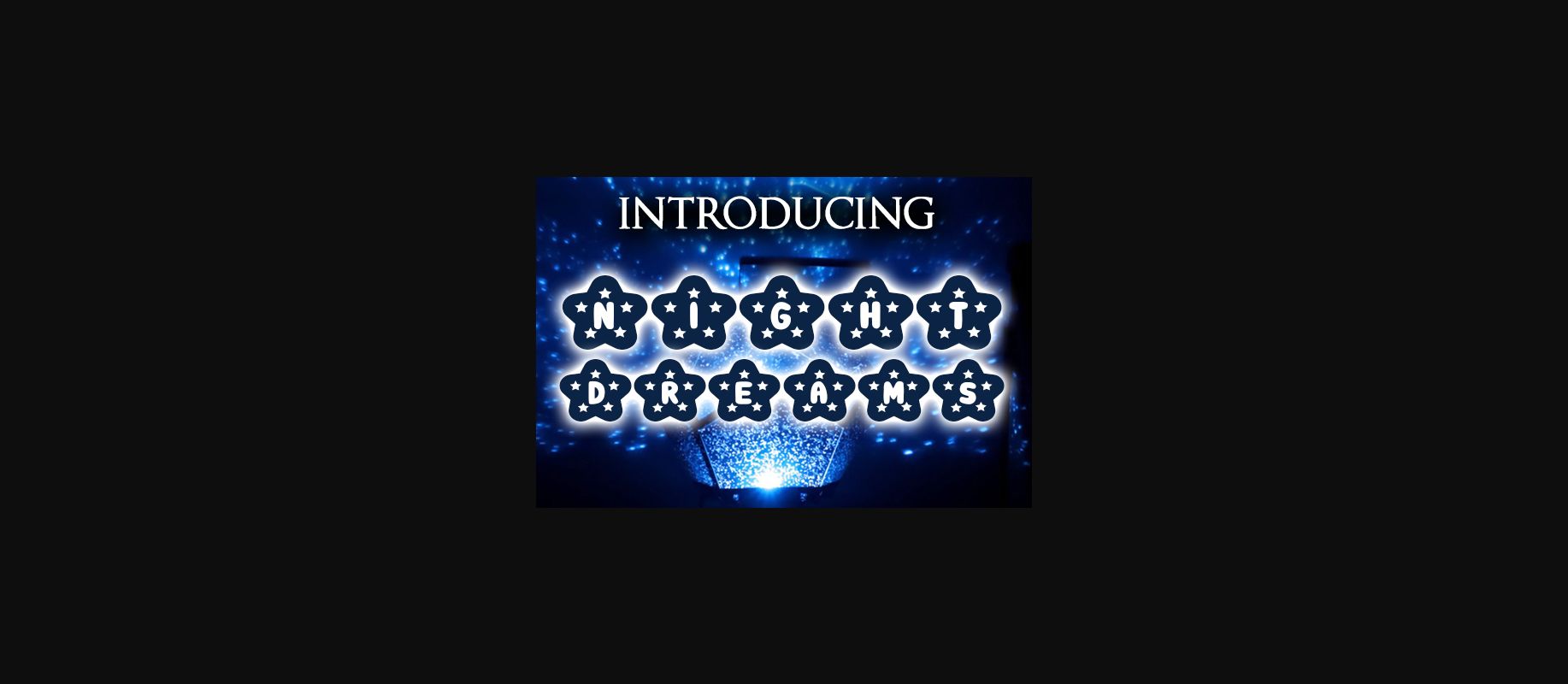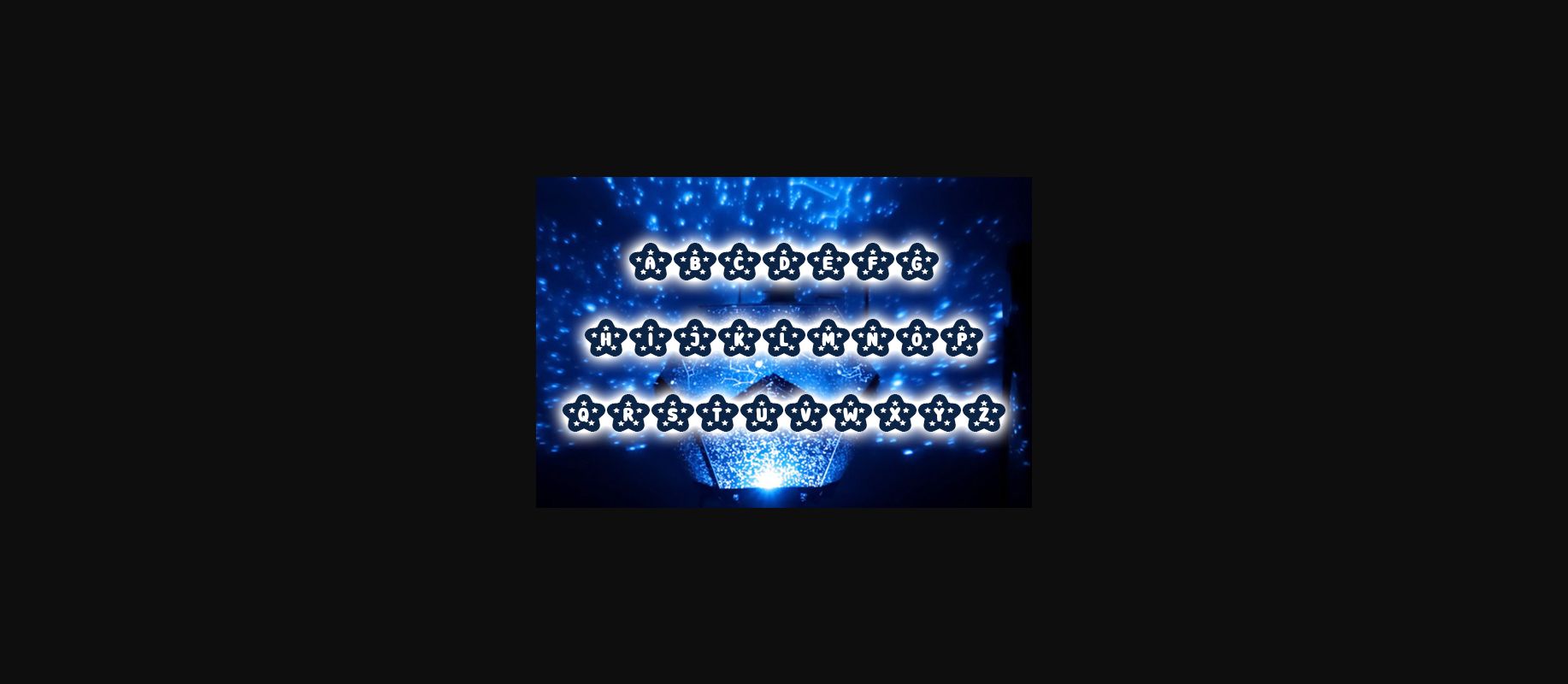
About Night Dreams Font
Night Dreams embodies fun, quirkiness and authenticity. This enchanting decorative font will turn any creative idea into a true standout.